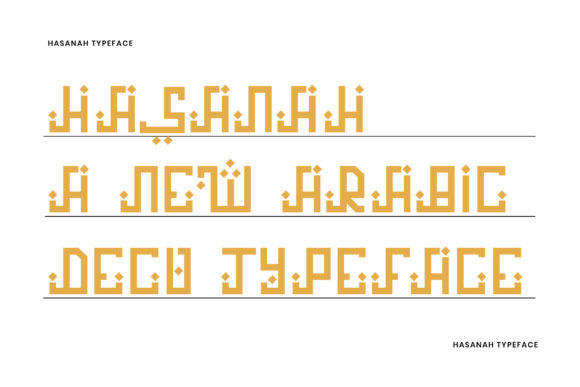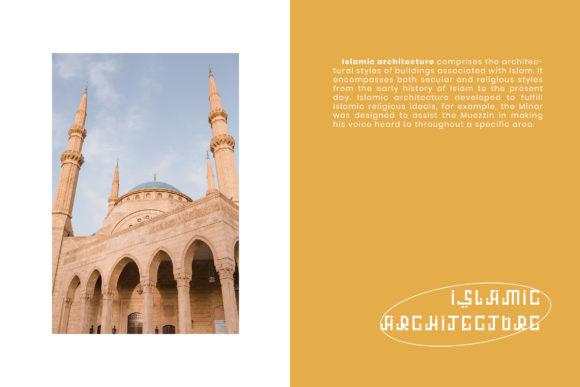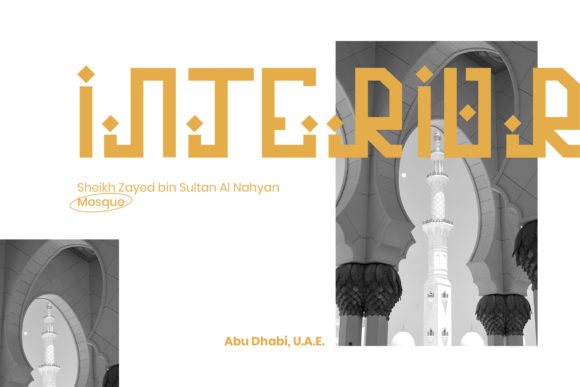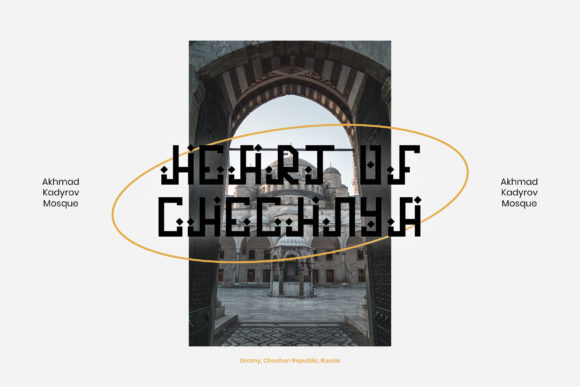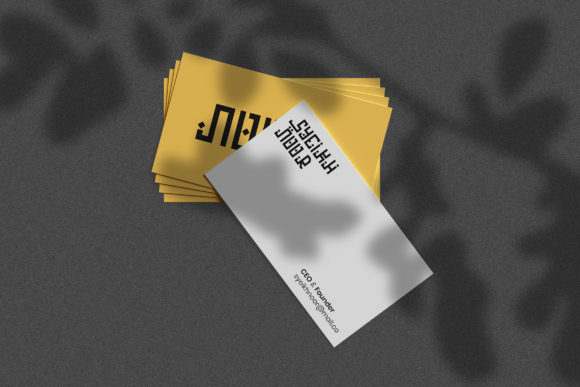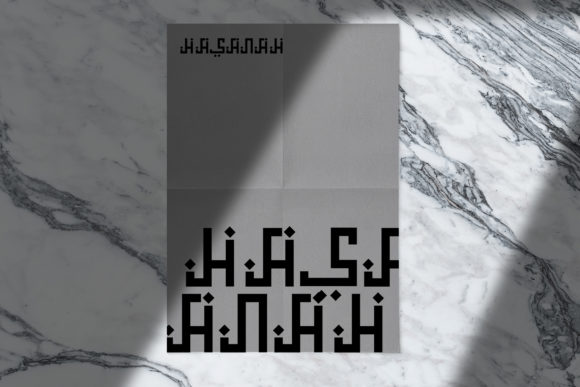
Introduction to Hasanah – Arabic Style Typeface Font
As a designer, there’s nothing quite like the rush of inspiration that comes from stumbling upon a unique and captivating font. You’re brainstorming ideas for a new project, scrolling through design resources, and suddenly, a font catches your eye – its elegant lines and intricate details transport you to a world of creative possibilities. For me, that moment came when I discovered Hasanah – Arabic Style Typeface Font, a stunning decorative typeface that’s been a game-changer for my designs.
With its high-quality design and transparent background, Hasanah – Arabic Style Typeface Font is a versatile tool that can elevate any creative project, from events and fashion to logos and branding. Whether you’re working on a free download or a paid project, this font is sure to add a special touch that sets your work apart from the rest.
As a valuable resource for designers, Hasanah – Arabic Style Typeface Font offers endless possibilities for creative expression. In this article, we’ll delve into the world of this beautiful font, exploring its features, uses, and why it’s a must-have for any designer looking to add a unique and elegant touch to their work.
Key Features of Hasanah – Arabic Style Typeface Font
- Unique and elegant Arabic design, perfect for creative projects that require a touch of Middle Eastern flair.
- Transparent background, allowing for seamless integration with any design or image.
- Designed with a high-resolution (300 DPI) for crisp and clear display, suitable for print and digital applications.
- Perfect for designers working on projects related to Islamic art, Arabic culture, or Middle Eastern-inspired themes.
Honest Review: Hasanah – Arabic Style Typeface Font
I recently stumbled upon Hasanah – Arabic Style Typeface Font while searching for design resources for a creative project, and I must say I was impressed by its high quality and unique style. The font is perfect for any project that requires an authentic Arabic touch, from brochures to social media graphics.
Here are some things that I particularly like about Hasanah – Arabic Style Typeface Font: ✨
- Its beautiful, intricate designs make it perfect for creative projects.
- The font is highly customizable, allowing you to adjust the size, color, and opacity to suit your design needs.
- The font includes a transparent background option, which is super handy for designing graphics that require a clean and minimalist look.
However, I did encounter a few limitations while using Hasanah – Arabic Style Typeface Font: ⚠️
- The font may not be suitable for all design projects, especially those that require a more modern or minimalist look.
Overall, I’m really impressed with Hasanah – Arabic Style Typeface Font. It’s a high-quality, unique, and versatile font that’s perfect for designers looking to add an authentic Arabic touch to their creative projects.
Can I customize Hasanah – Arabic Style Typeface Font for my specific design needs?
While Hasanah – Arabic Style Typeface Font is a versatile and adaptable font, it’s not designed to be heavily customized. However, you can experiment with different font sizes, colors, and combinations to create unique and interesting designs. If you need more advanced customization options, consider hiring a professional designer or font expert.